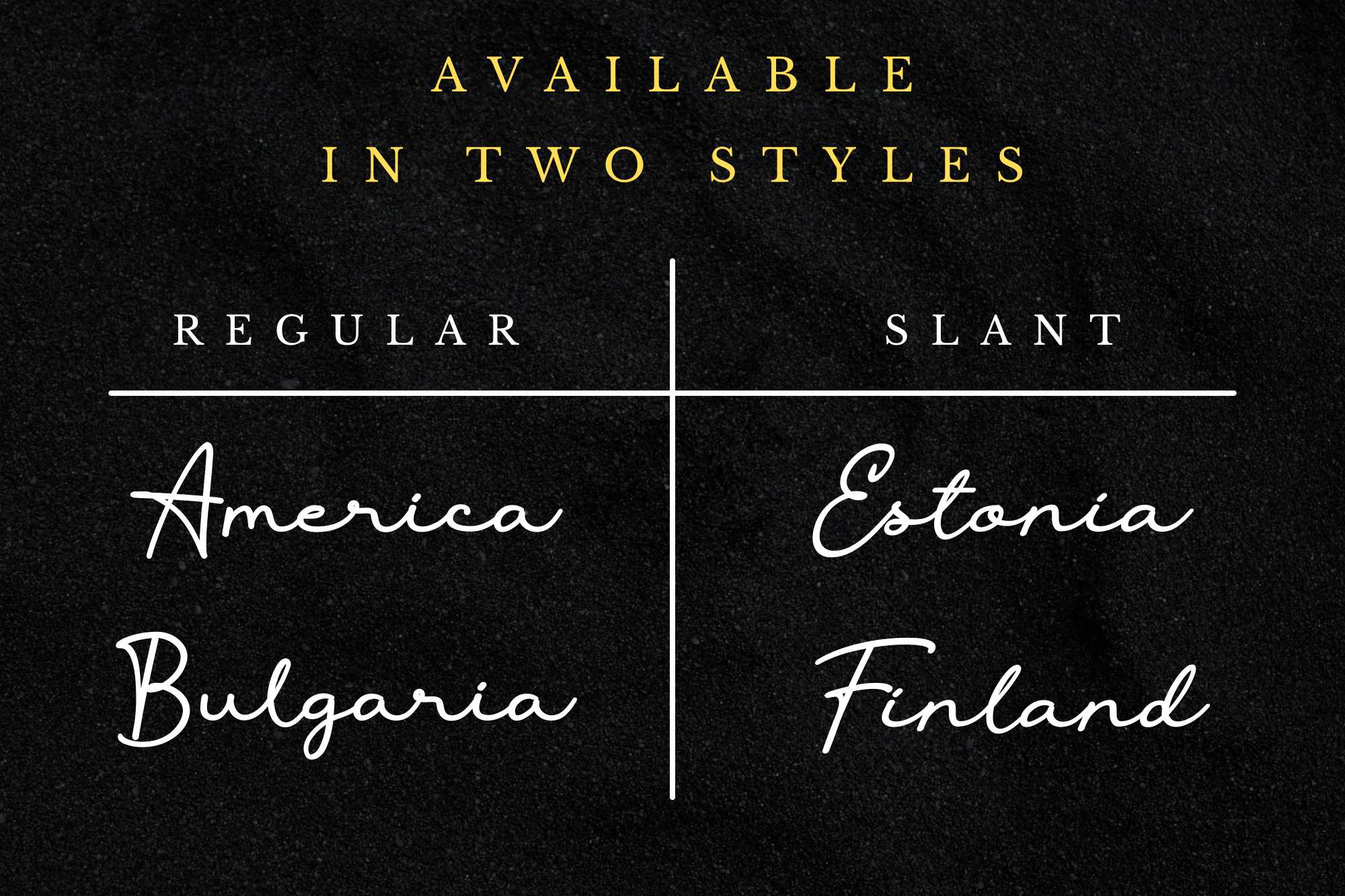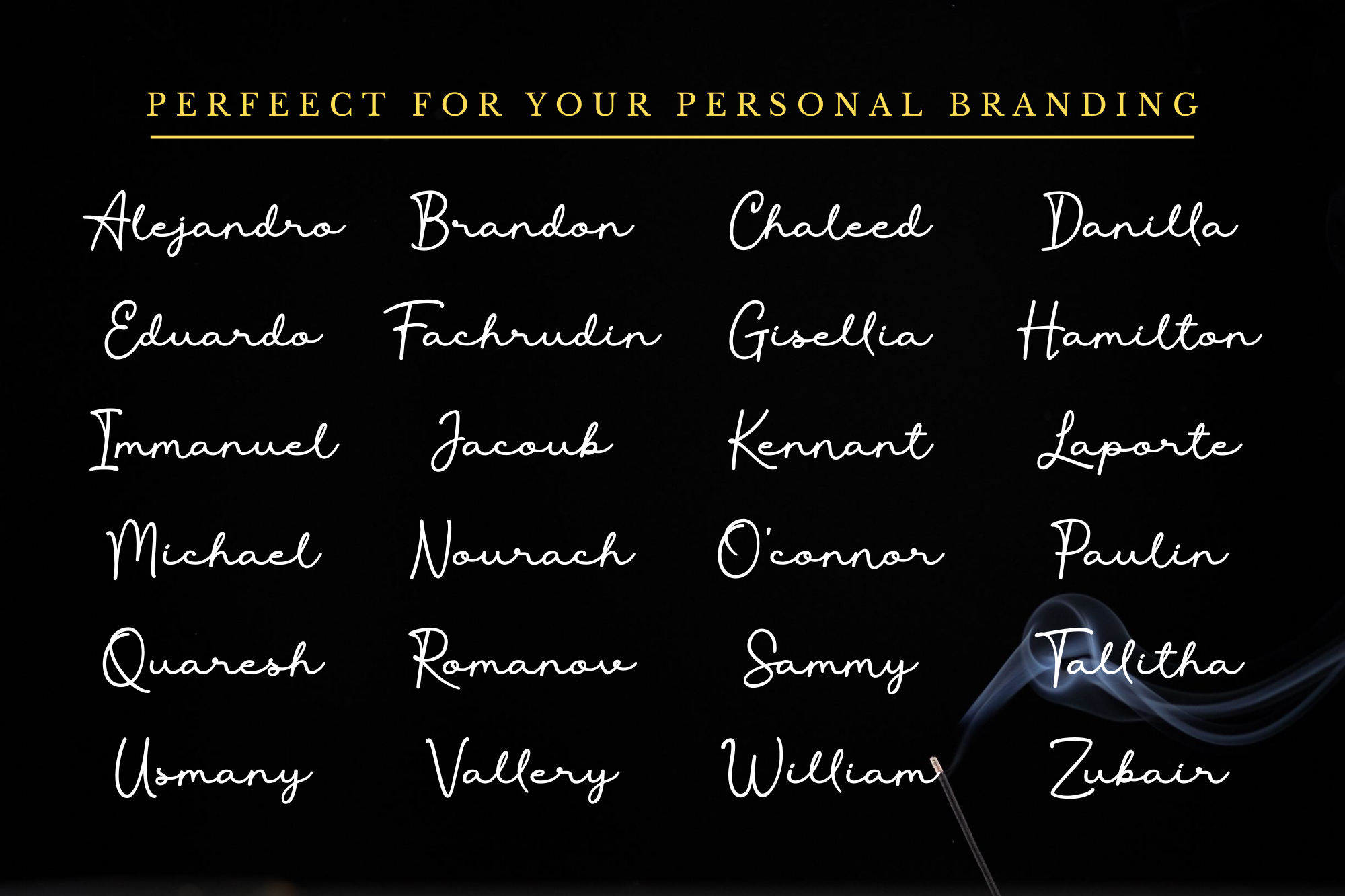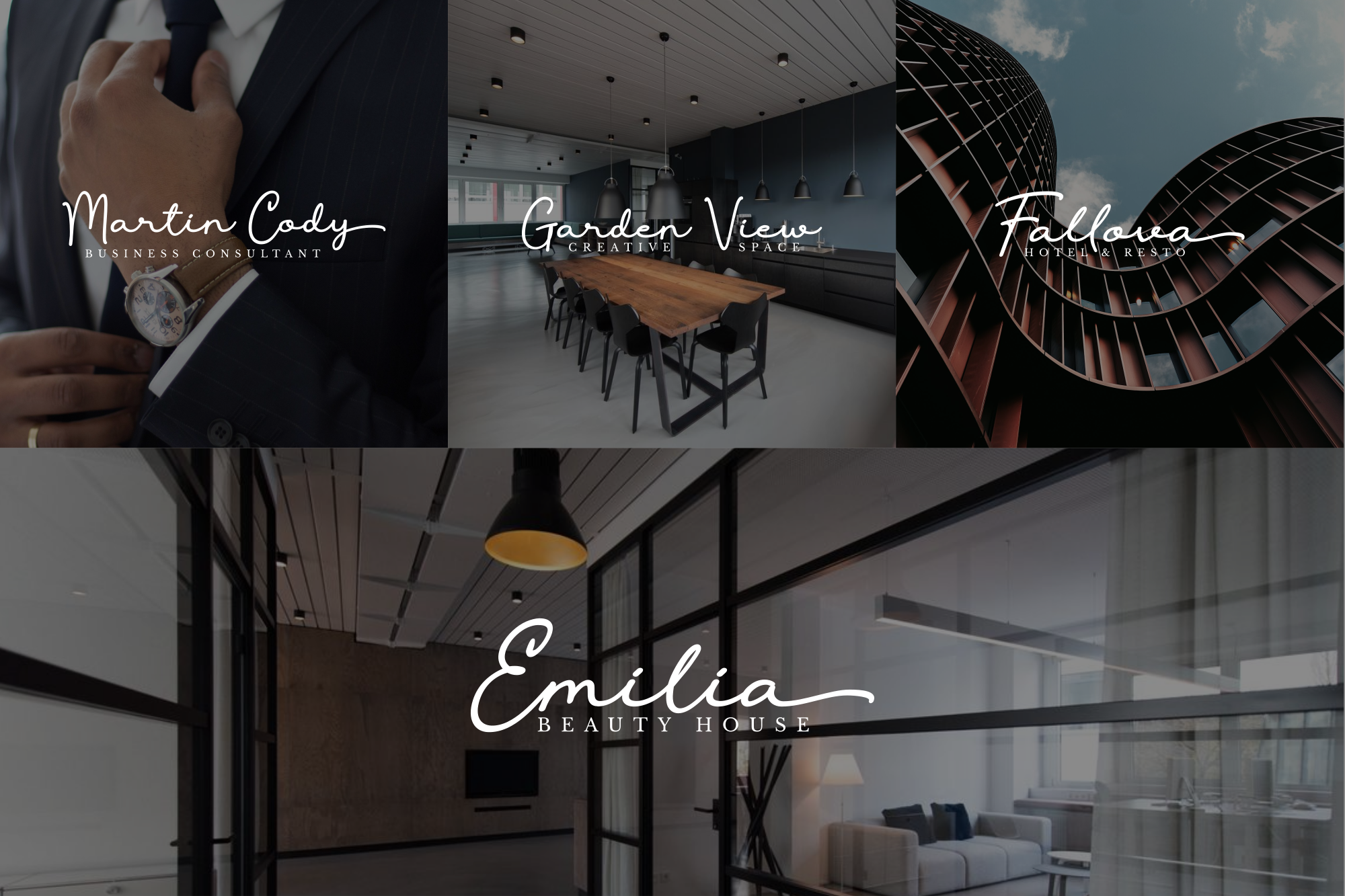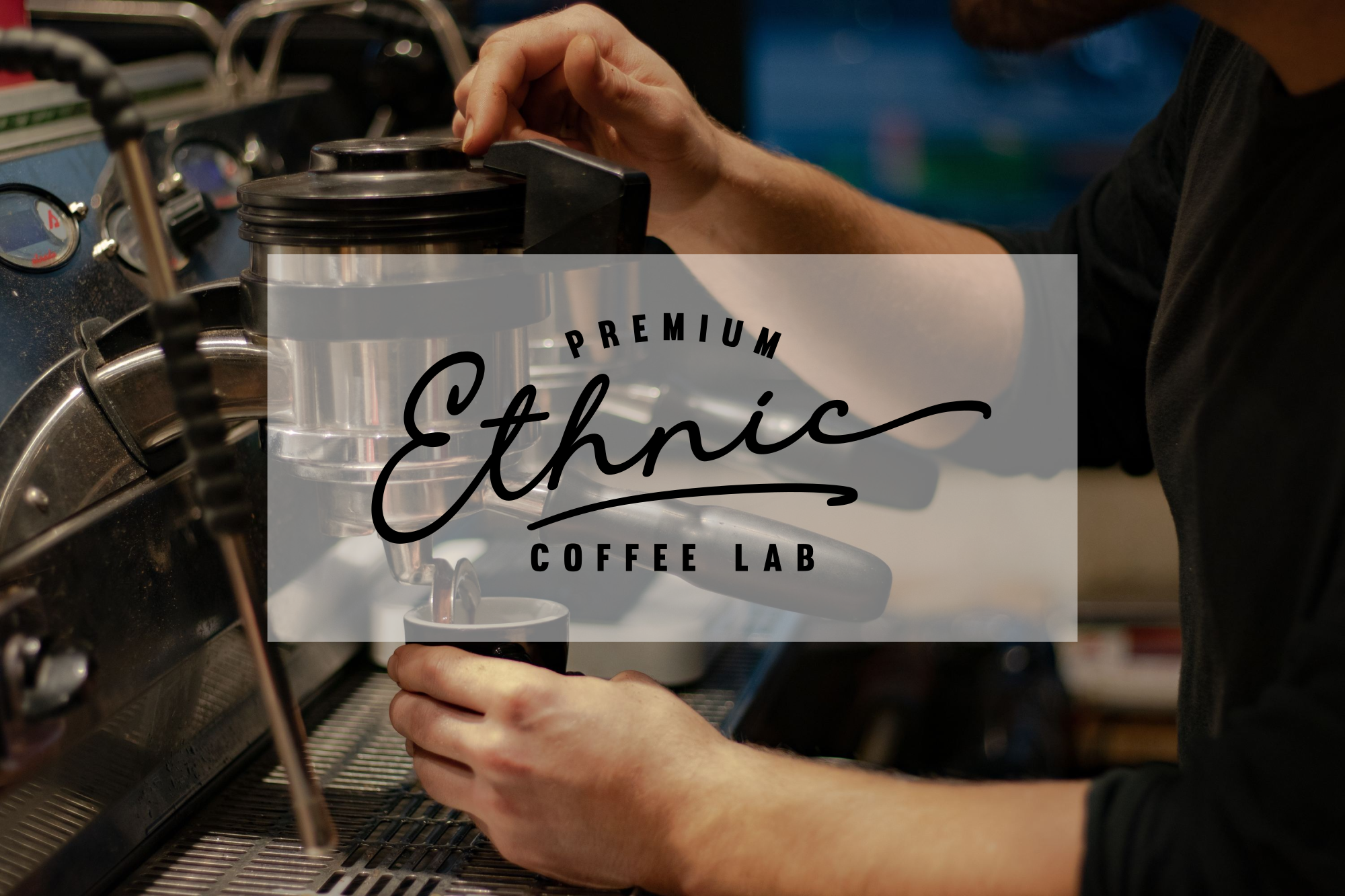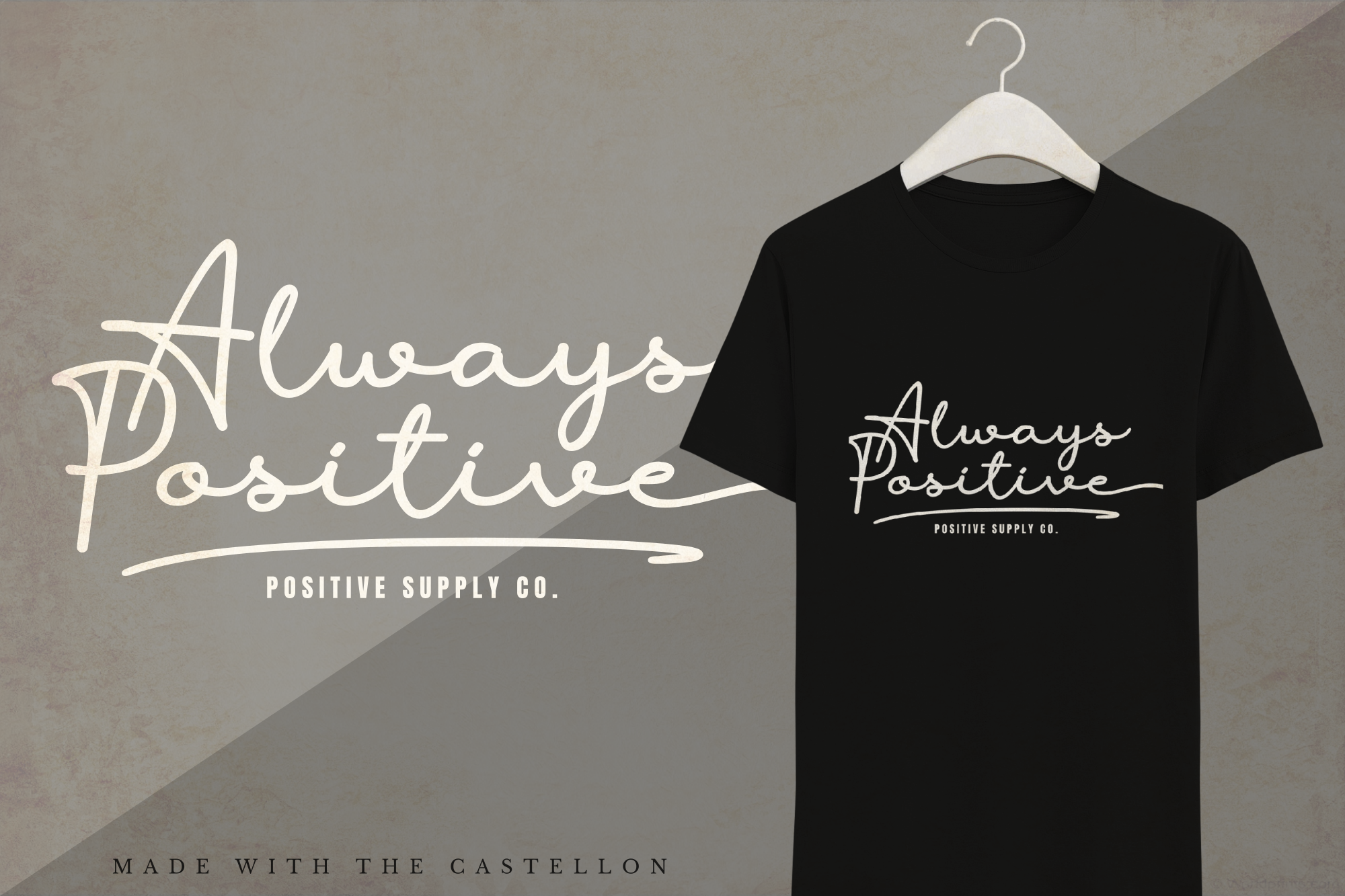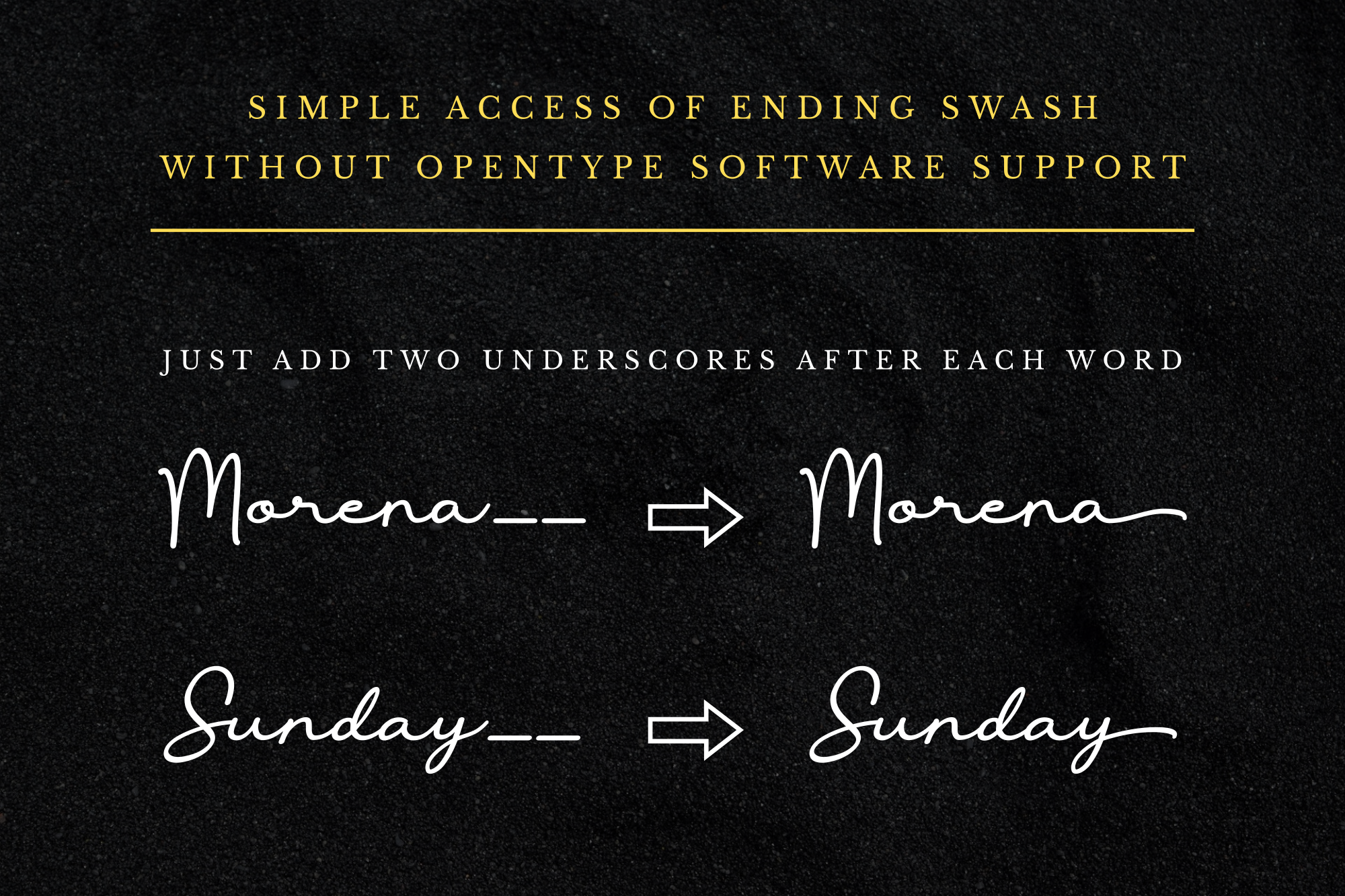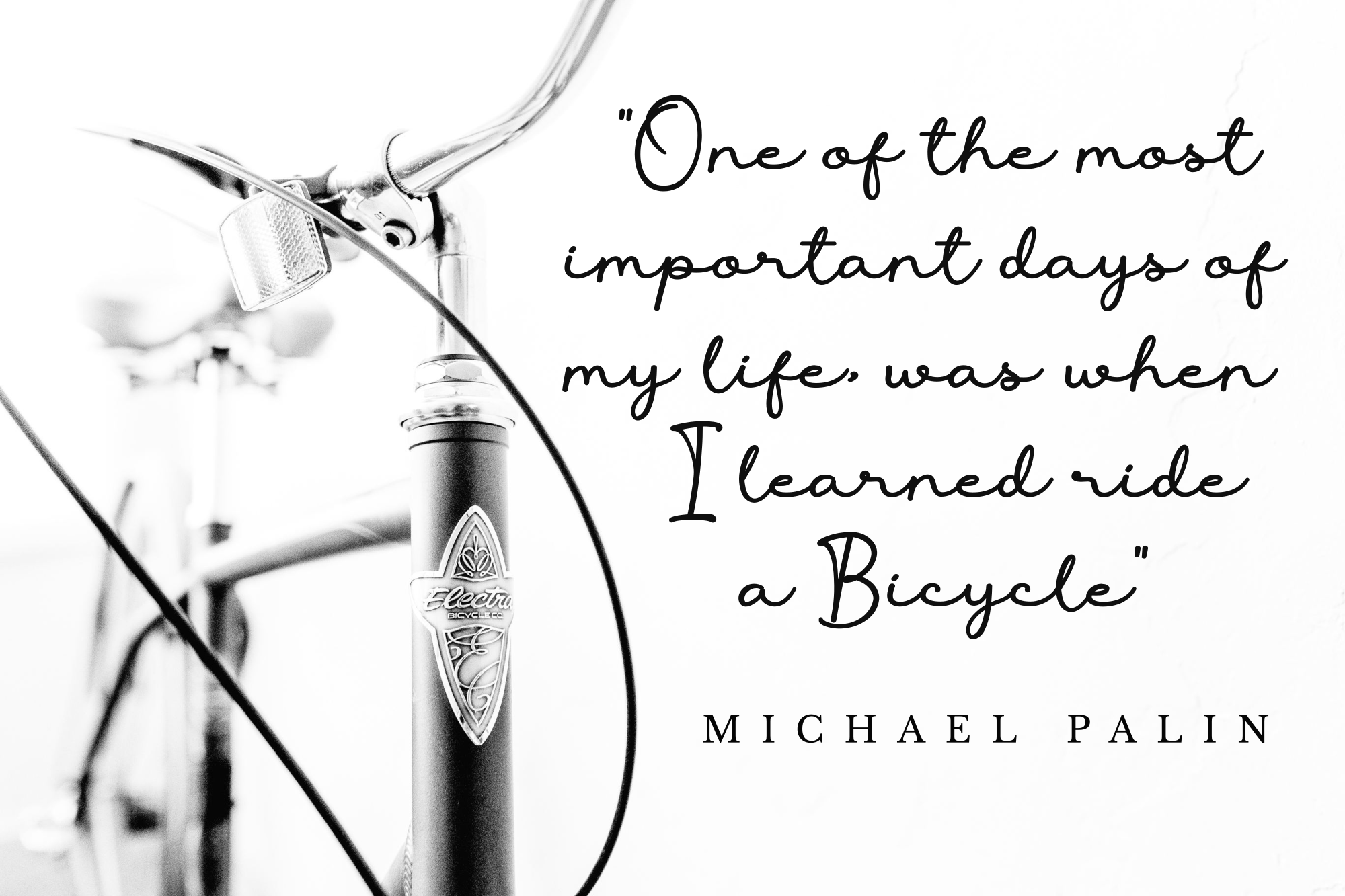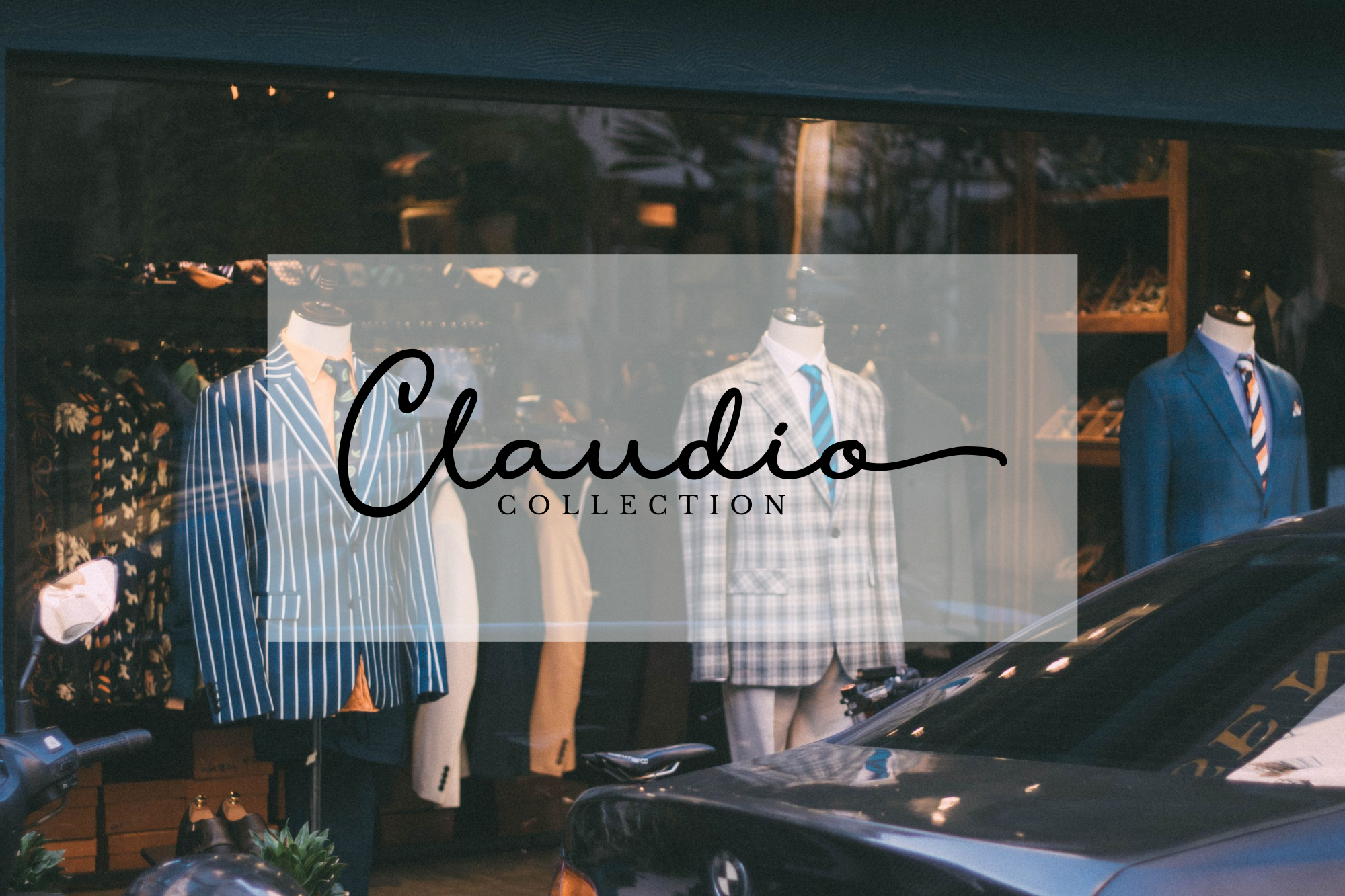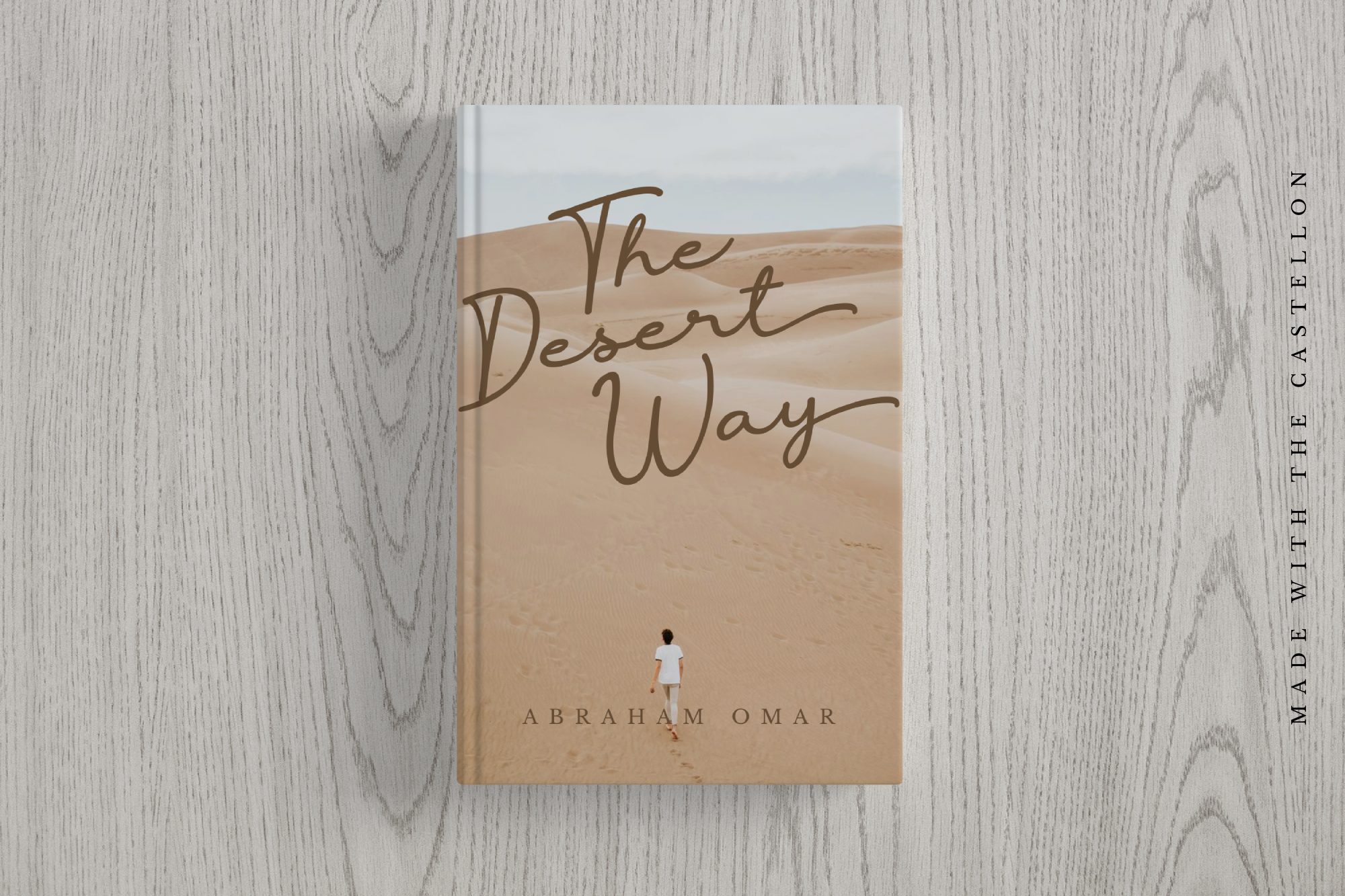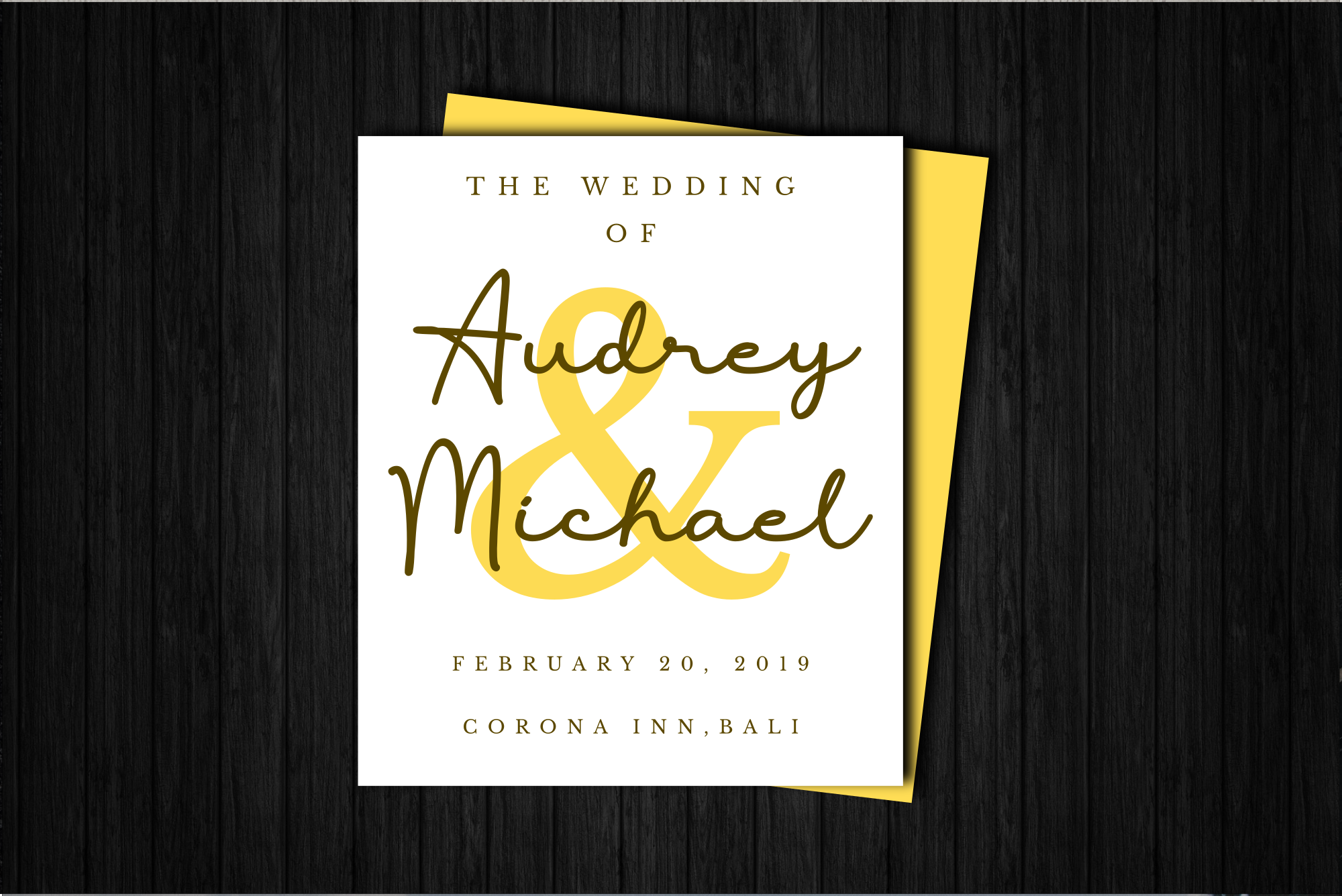
The Castellon - Signature Font
The Castellon is a classy signature typeface available in regular and slant styles. It has an elegant natural look that adds a refined touch to your designs.
The Castellon is a classy signature typeface available in regular and slant styles. It has an elegant natural look that adds a refined touch to your designs. It is a great choice for photography watermarks, signatures, logo designs, quotes, branding, business cards, and many other creative projects.
Logos, branding, packaging, posters, and editorial applications